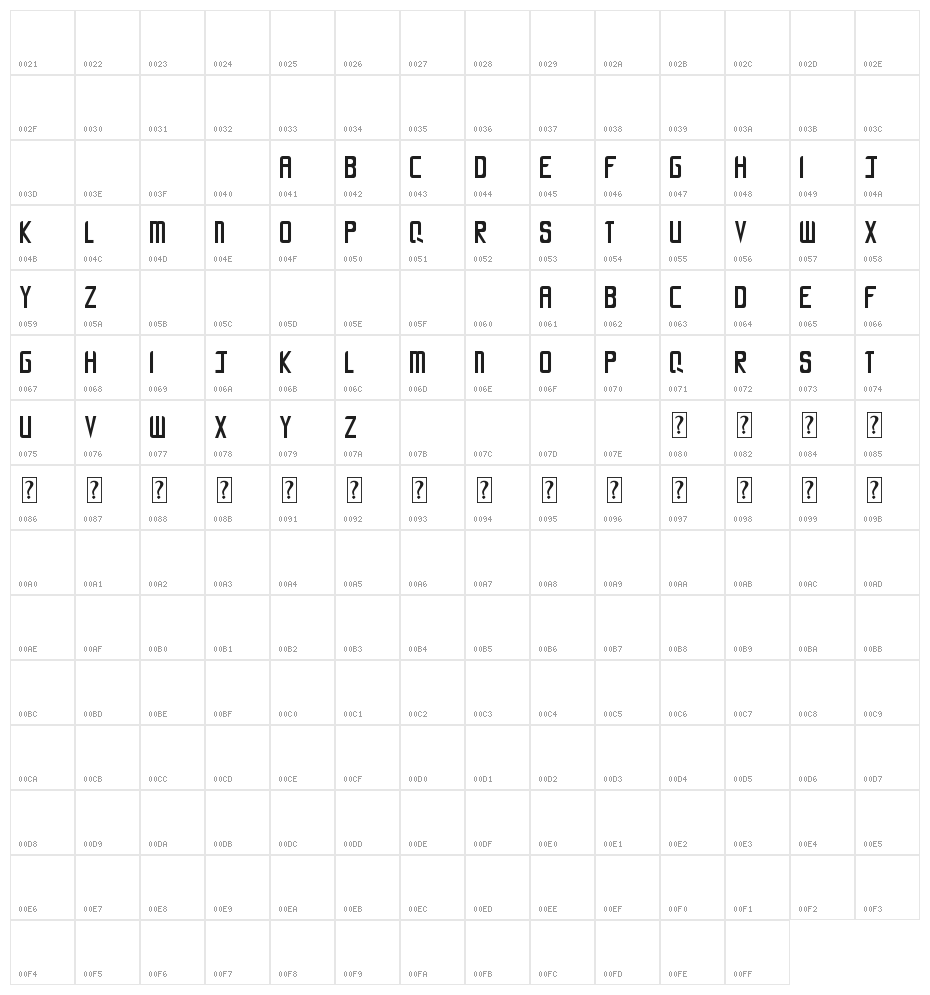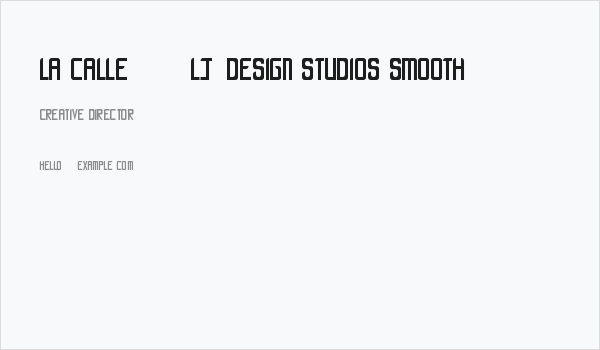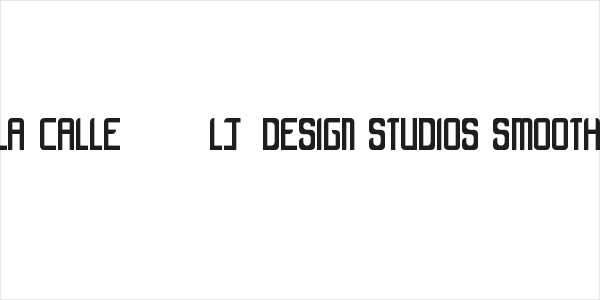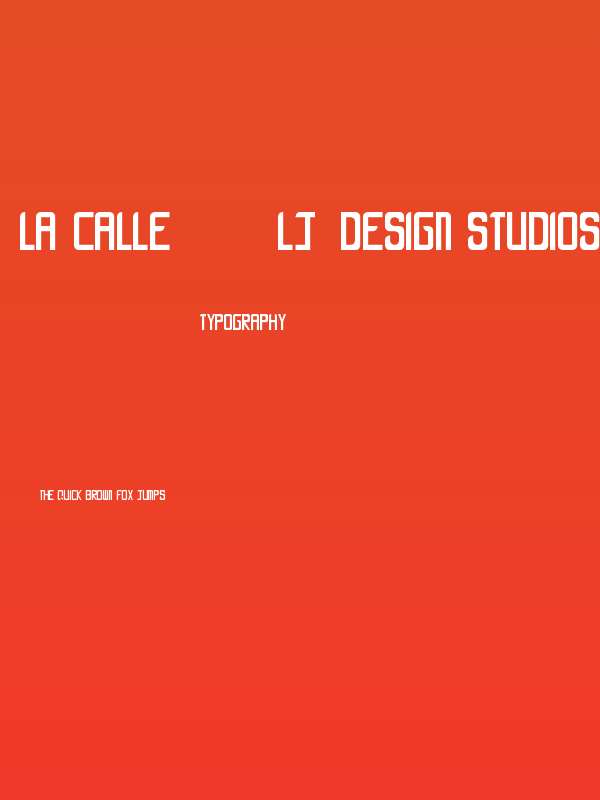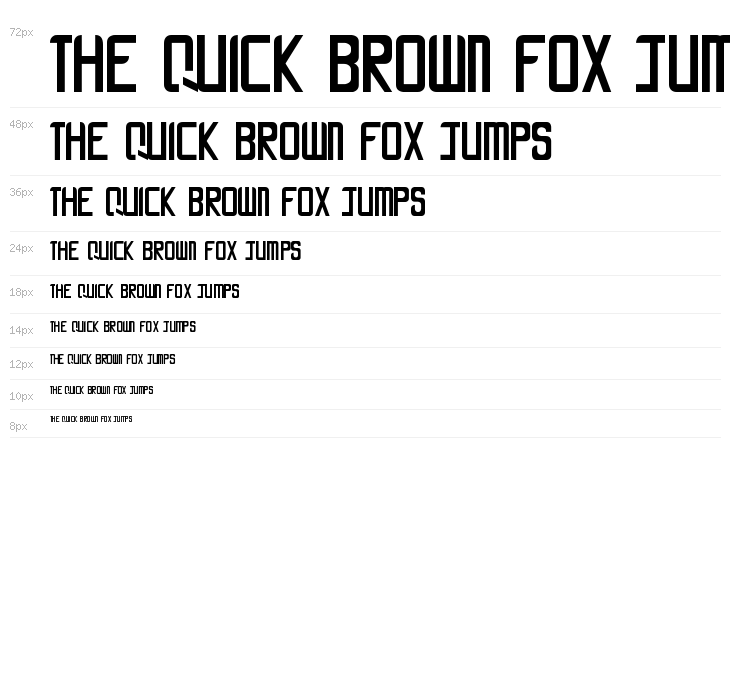
LA CALLE 6 - LJ-Design Studios Smooth Font
LA CALLE 6 - LJ-Design Studios Smooth Description
This font features a modern and geometric design with a distinct block-like appearance. The characters are uniformly structured, with consistent stroke widths that create a cohesive and bold look. The uppercase letters are particularly striking, with sharp angles and a slightly condensed form that enhances readability while maintaining a unique style. The font's clean lines and lack of serifs give it a contemporary feel, making it suitable for various design applications. Its uniformity and simplicity make it versatile, yet its geometric nature adds a touch of sophistication.
| Proposed Projects | Ideal for branding, posters, headlines, and digital media where a modern and bold statement is needed. |